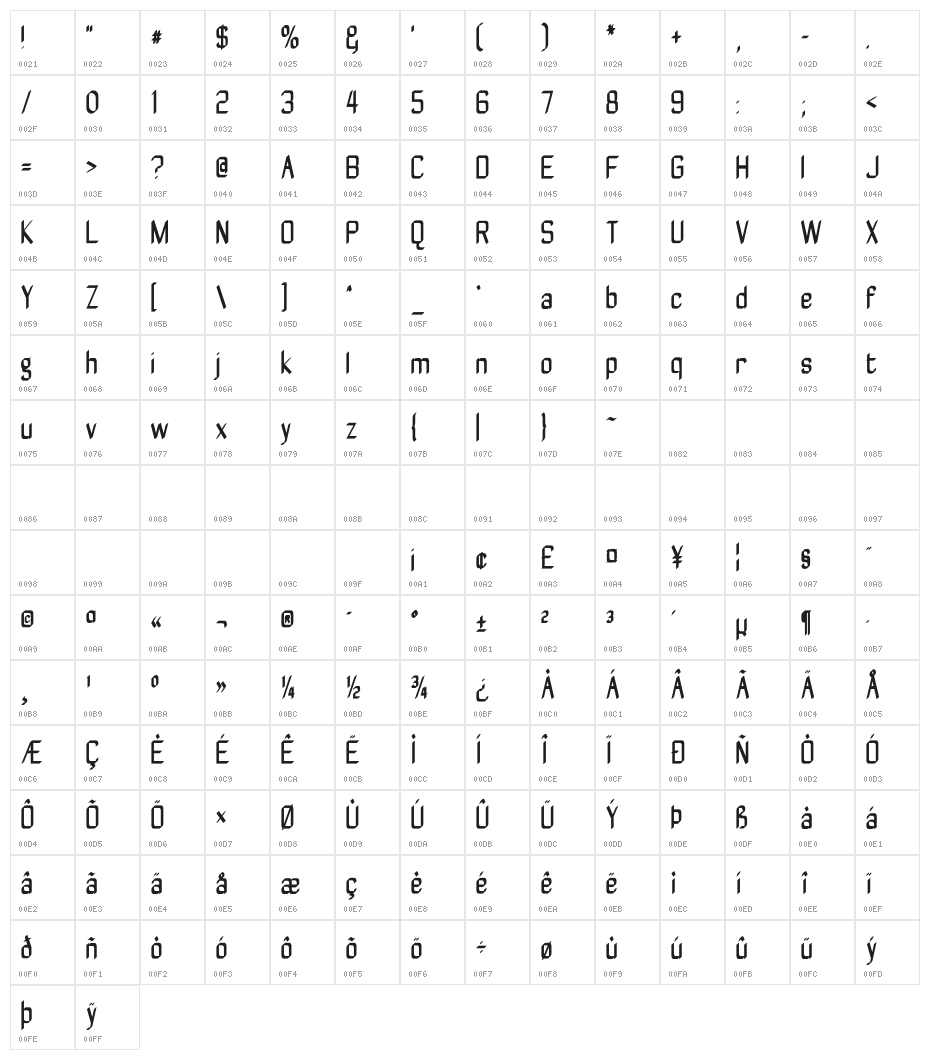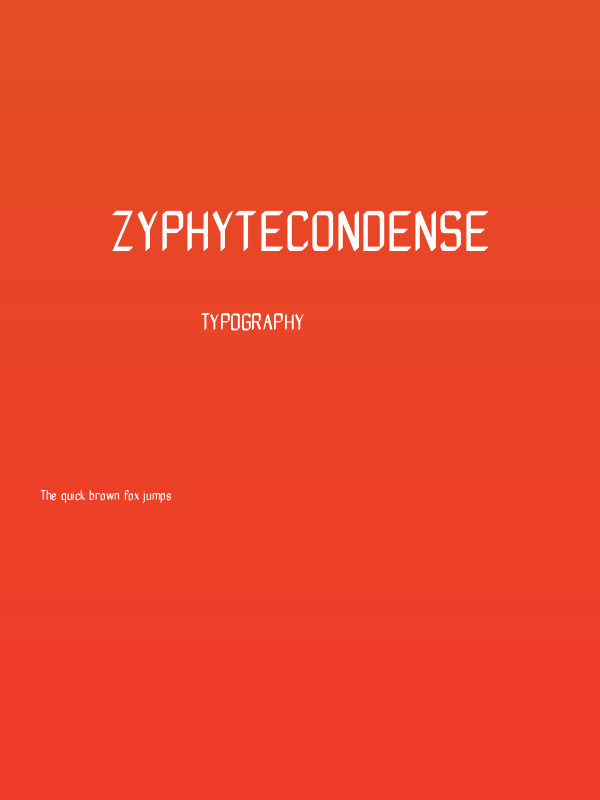
ZyphyteCondense Font
ZyphyteCondense Description
This font features a modern and geometric design with a condensed structure, giving it a sleek and streamlined appearance. The uppercase letters are bold and angular, with sharp edges that create a sense of precision and strength. The lowercase letters maintain the same angular style, providing consistency throughout the typeface. The numerals are clear and distinct, matching the overall aesthetic of the font. Special characters are included, offering versatility for various design needs. The font's condensed nature makes it ideal for space-saving applications while maintaining readability.
| Proposed Projects | Ideal for branding, posters, headlines, and digital interfaces where a modern and sleek look is desired. |